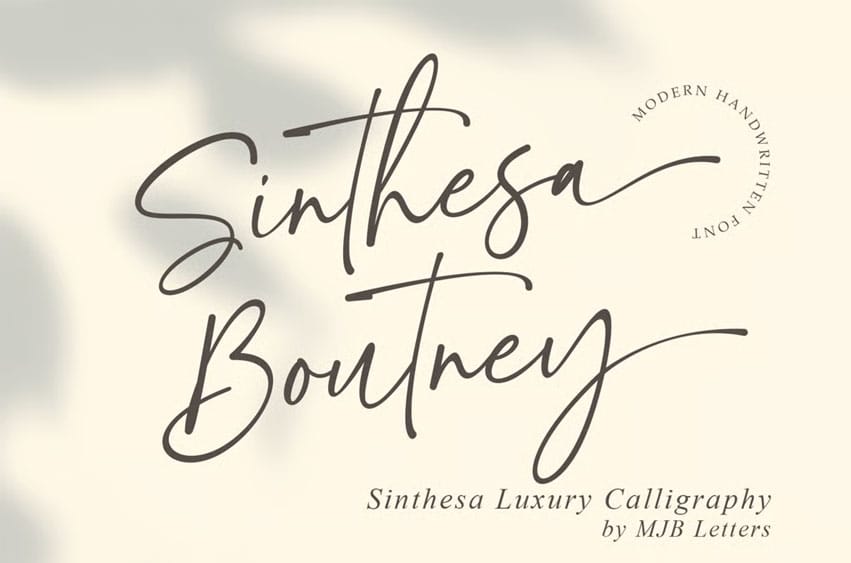
Sinthesa Boutney Font is a luxury handwritten font with a modern calligraphy style that brings elegance and sophistication to every design. With smooth curves, natural strokes, and a timeless handwritten feel, this font is ideal for wedding invitations, branding, logos, product packaging, quotes, greeting cards, and social media posts.
Carefully crafted to reflect both classy and feminine vibes, Sinthesa Boutney adds a premium touch that elevates your creative projects. Its versatility makes it easy to pair with serif or sans serif fonts, resulting in a balanced and stylish composition.
- Modern handwritten calligraphy style
- Elegant and timeless luxury feel
- Suitable for weddings, logos, packaging, and branding
- Easy to pair with other font styles